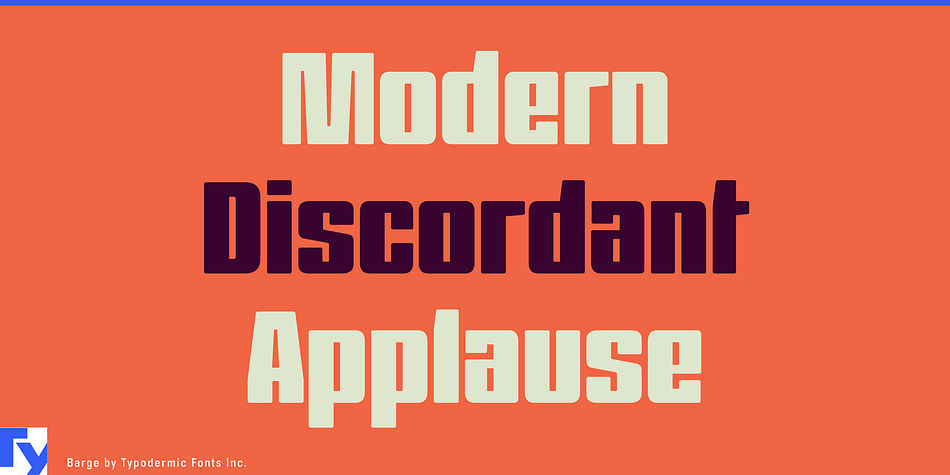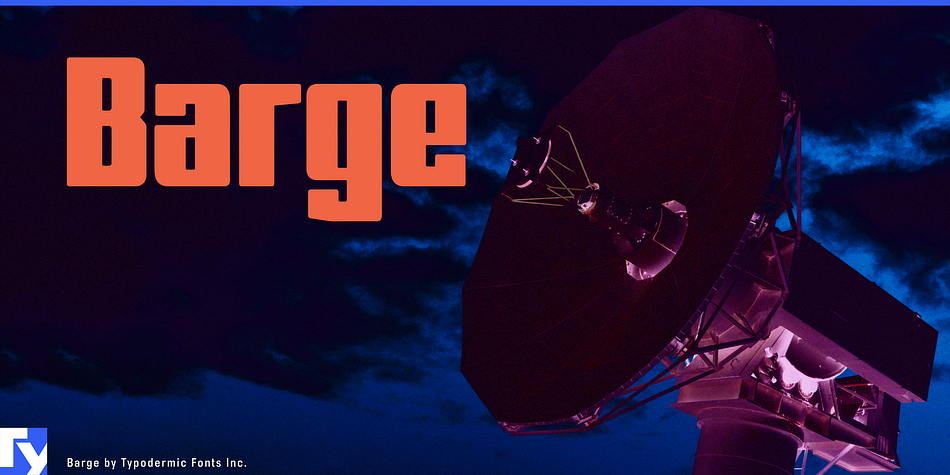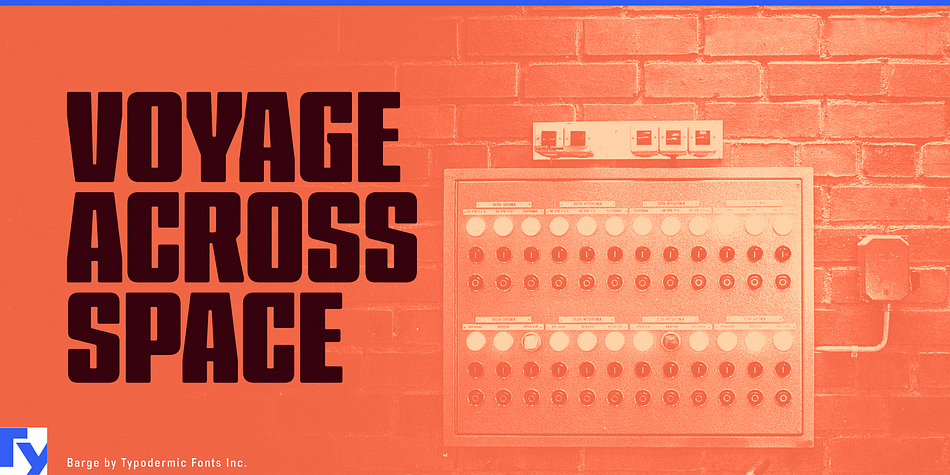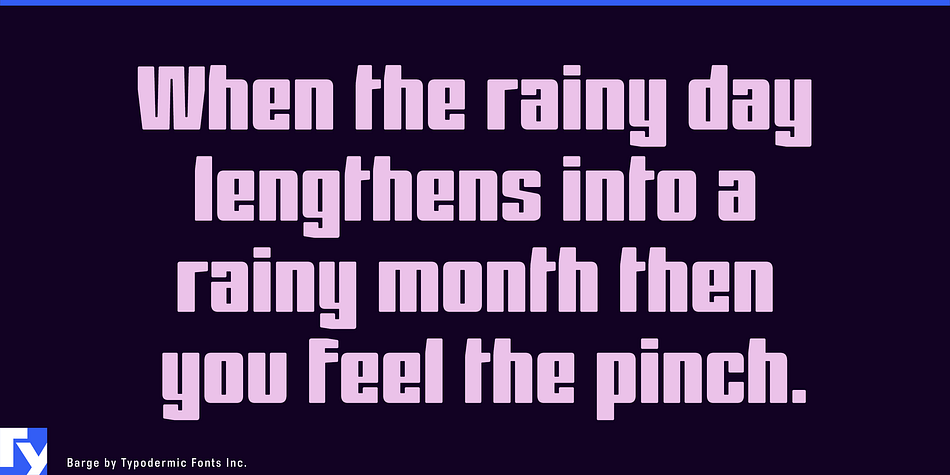
Barge is a display sans font published by Typodermic Fonts Inc.
Barge is massive and compact. Bold, non-retro monoliths with smooth chamfers deliver bunches of punches.